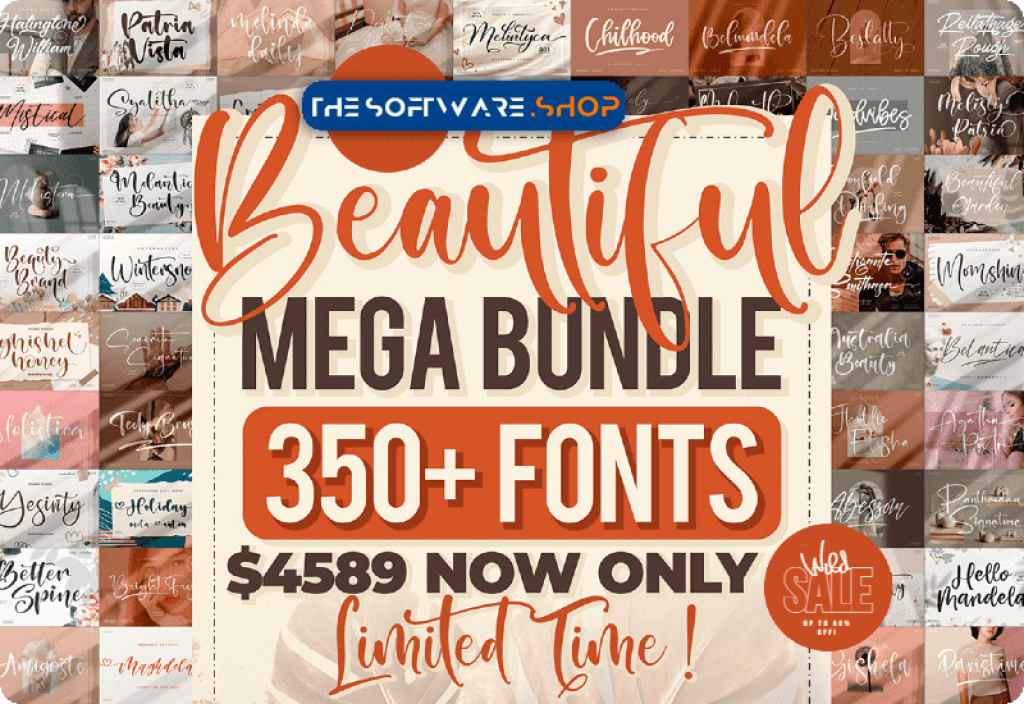
Beautiful Fonts Mega Bundle is the font collection of 353 premium fonts from Perspectype that includes hundreds of glyphs including alternate, ligatures and international language support. , With a variety of styles such as calligraphy, signature, brush lettering and handwriting, you can create beautiful designs with this extensive collection of fonts that includes international language support.
Fonts included in this bundle:
- Wintersnow
- California
- Summer Flowers
- Sweet Cake
- Cuningham Singleton
- Cheese Foodies
- Jacky Boys
- Better Lovely
- Dear Honey
- Pixel Craft
- Tomcat Likely
- Belgium Victory
- Berline Spark
- Lemonte Buster
- Ballon Dreams
- Summer Beach
- Catalish Huntera
- Drawing Kids
- Noted Party
- Baby Shower
- Twinkle Spark
- Beauty Brand
- Washington Calligraphy
- Love Erlia
- Cutie Delina
- Summer Lovely
- Olivianta Pettcia
- Delrosa Holiday
- Party Rocky
- Lemon Delight
- BlueBird
- Belinda Heylove
- Derlinata Space
- Manchester Signature
- Namashte
- Rafaela Monogram
- Candy Dino
- Momshine
- Gabriel
- Yumeira Monogram
- Bulgaria Emilton
- Amalia Nurse
- Goodvibes
- Belistaria Signature
- Farmhouse
- Rossie Bella
- Melinda Amatha
- Emely Days
- Beauty Nature
- Alisha Gishela
- Lombok Beach
- Deirma
- Fighterland Script
- Boutique
- Berlishanty Calligraphy
- Michigan Custom
- Morning
- Butterfly Holiday
- Marliana Alisha
- Balencia Lattive
- Hologram Kalenda
- Vierasti Monogram
- Loving Paris
- Samantha
- Patterson Southern
- Chilhood
- Aullia Beauty
- Amsterdam Listing
- Lightgraph
- Hello Mandela
- Hartman & Richard
- Amsterdam Signature
- Rockybrown
- Artistica
- Sarah Betty
- Amigoste
- Maliska
- Butterfly Hellyna
- Dominic Laurence
- Manttulda Philliph
- Yesinty
- Delight
- Cristtina Delmonte
- Bastian Richardo
- Dettina Laura
- Aprilisa
- Mastelo
- Rubie
- Cinderela
- Brother
- The Cralington Signature
- Amsterdam Lentteria
- Lovelyday
- Buffalo
- Holiday
- Amattera Million
- Muttiara Pagi
- Ghisel Honey
- Lovely Beralyna
- Holiday Mantilda
- Humaira Monogram
- Simphony Brushe
- Delisha Glande
- Brittanyhustle
- Lolytta Renda
- Washington Signature
- Sunday Freedom
- Sundaytime
- Wonderful Rendola
- Patria Vista
- Jamesttedy Signature
- Tomihesta
- Portofolio Brilliant
- Melinda Daily
- Britany
- Frederick Alexander
- Janji Cinta
- Mountain Brilliant
- Roseday
- Andytta Selya
- Beratone Emadre
- Reltinatha Signature
- Prilista Delrosa
- Optimistica Dreams
- Auristtela Patricia
- Chamelia Blinkar
- Allinda Light
- Rafaesty Wigera
- Agatha Putri
- Hello Bird
- Lamberta Signature
- Marira Binttang
- Strongela Delmonte
- Dahliakeys
- Butterfly Glorista
- Washington Lifestyle
- Better Spine
- Kalindaty Alintaria
- Renatta Signature
- Huttan Cerote
- Kristal
- Britany Lovely
- Halittany Badela
- Dandelion Pelangi
- Senorita Signature
- Bettilda Ristta
- Optimistic Signature
- Harietta Bulmer
- Cattya Brown
- Lovelyta
- Jhonathan Hartman
- Futuristic Rottesla
- Cardrone
- Buffalo City
- Amigate Endgame
- Bentila Signate
- Delmore
- Pelgona Stilman
- Lightshoot
- Hestteroid Brilliant
- Rosalinda Berlinata
- Starlla
- Falinlove
- Dandelion Sweety
- Richards Frederick
- Patricia Signature
- Emelystta
- Hercutes
- Freyatina Pelgona
- Tametogde
- Amorillan Orgendam
- Anatasya Lenttera
- Futerdam Knight
- Farmhouse Morning
- Kagemasha
- Delia Monogram
- Handover Signature
- Delmonte Absolute
- Delynta
- Dreams Kuliah
- Christopher Signature
- Sttevanie Barbara
- Andalusia Signatera
- Futuristic Caligraph
- Ferttigra
- Syahrine Love
- Aprilia Marelo
- The Magestica
- Renathalia Signature
- Brilliant Castelo
- Mantilda Edition
- Abessom
- Rosterdam Signature
- Pattricia Michella
- Princes Gabriela
- Silvana Byight
- Rellathage Rough
- William Victory
- Belmondela
- Amantaria Beauty
- Mastille Attedro
- Beterdam Smith